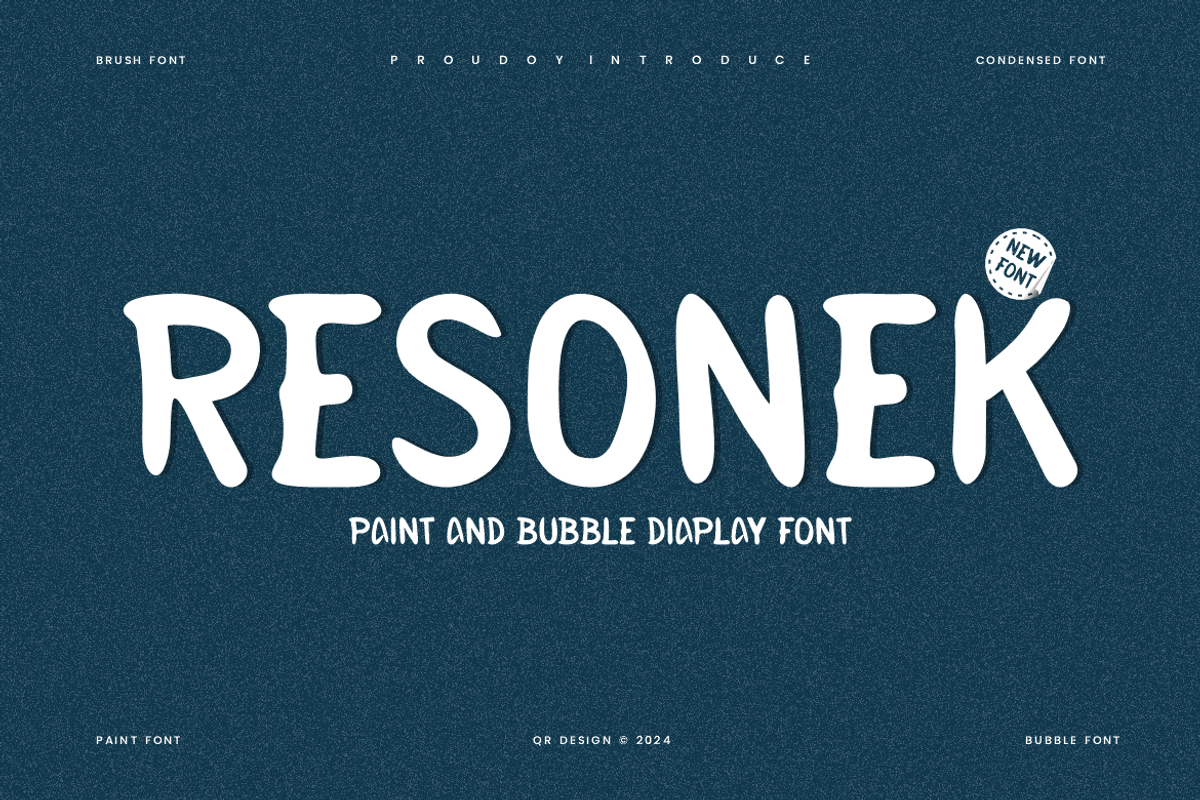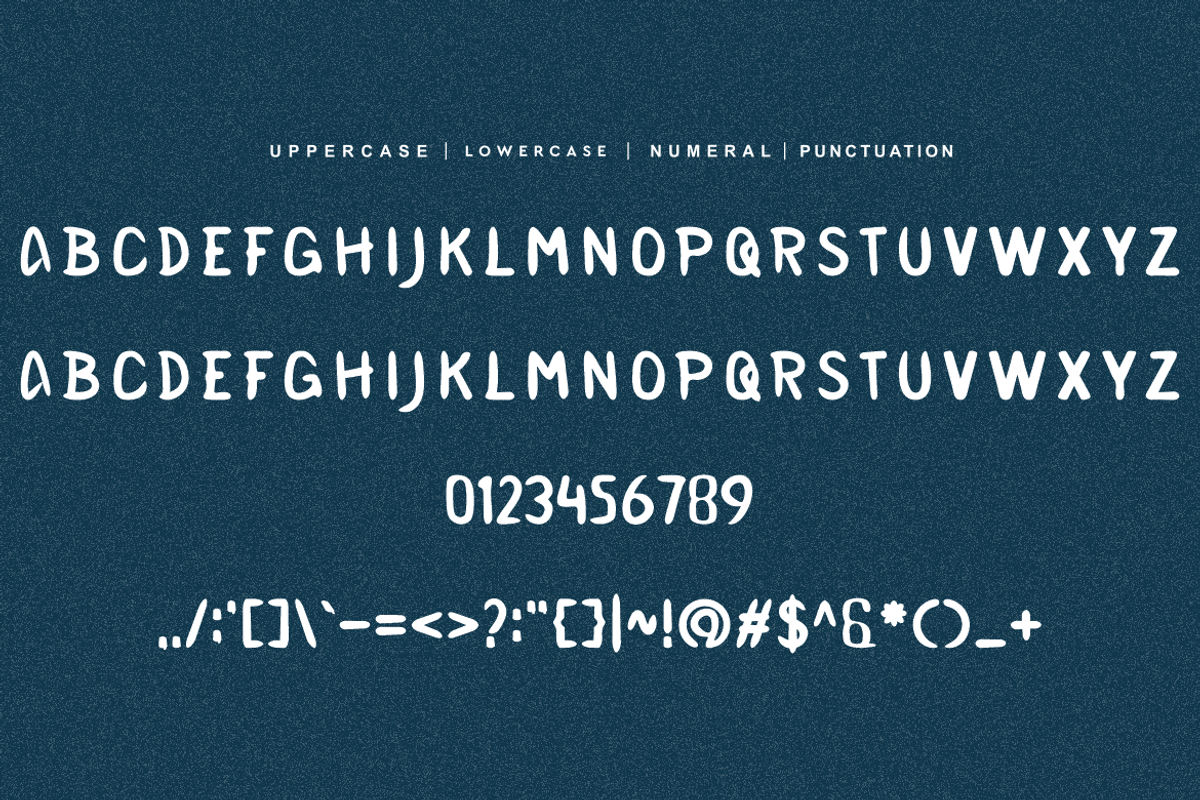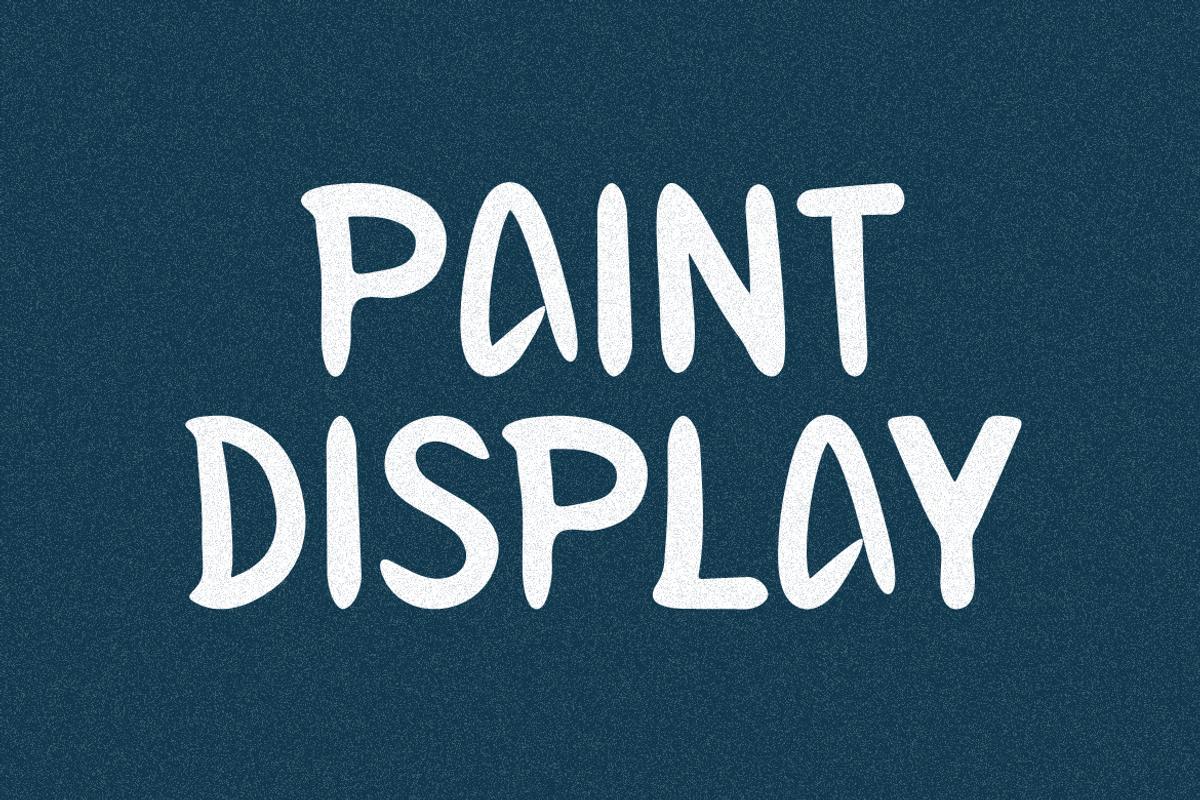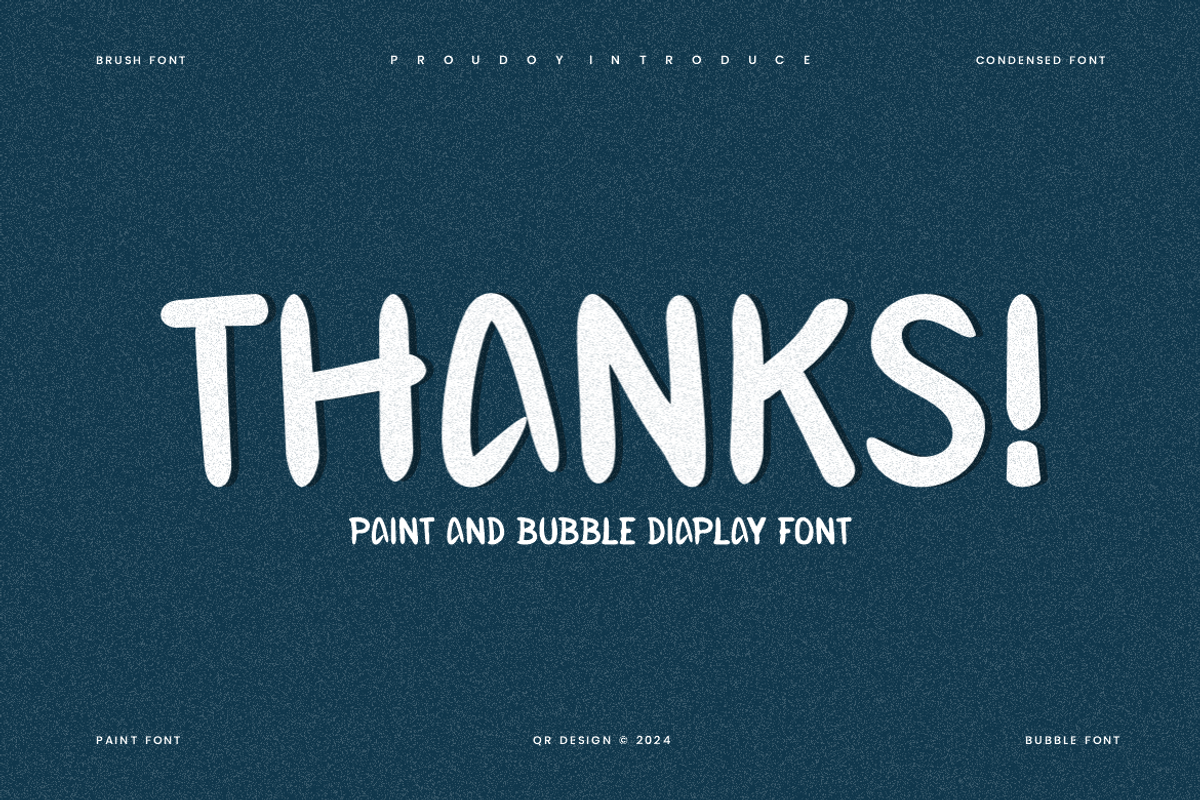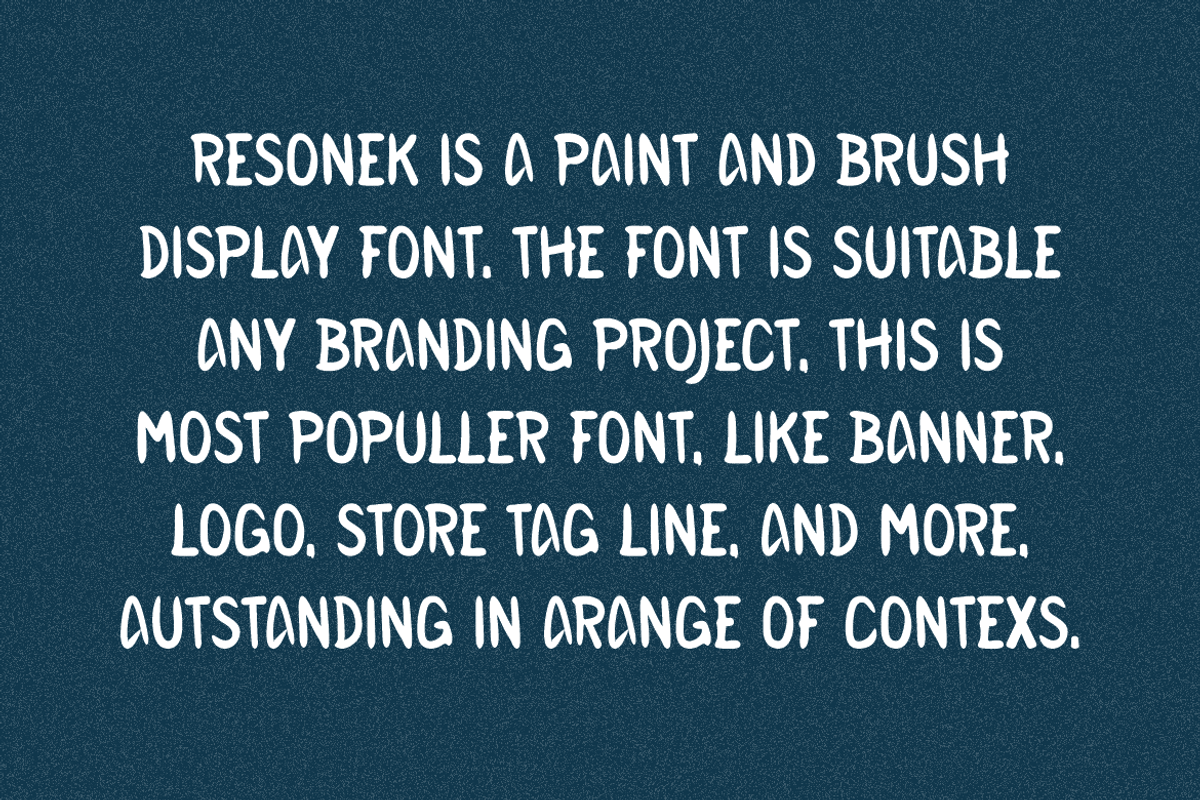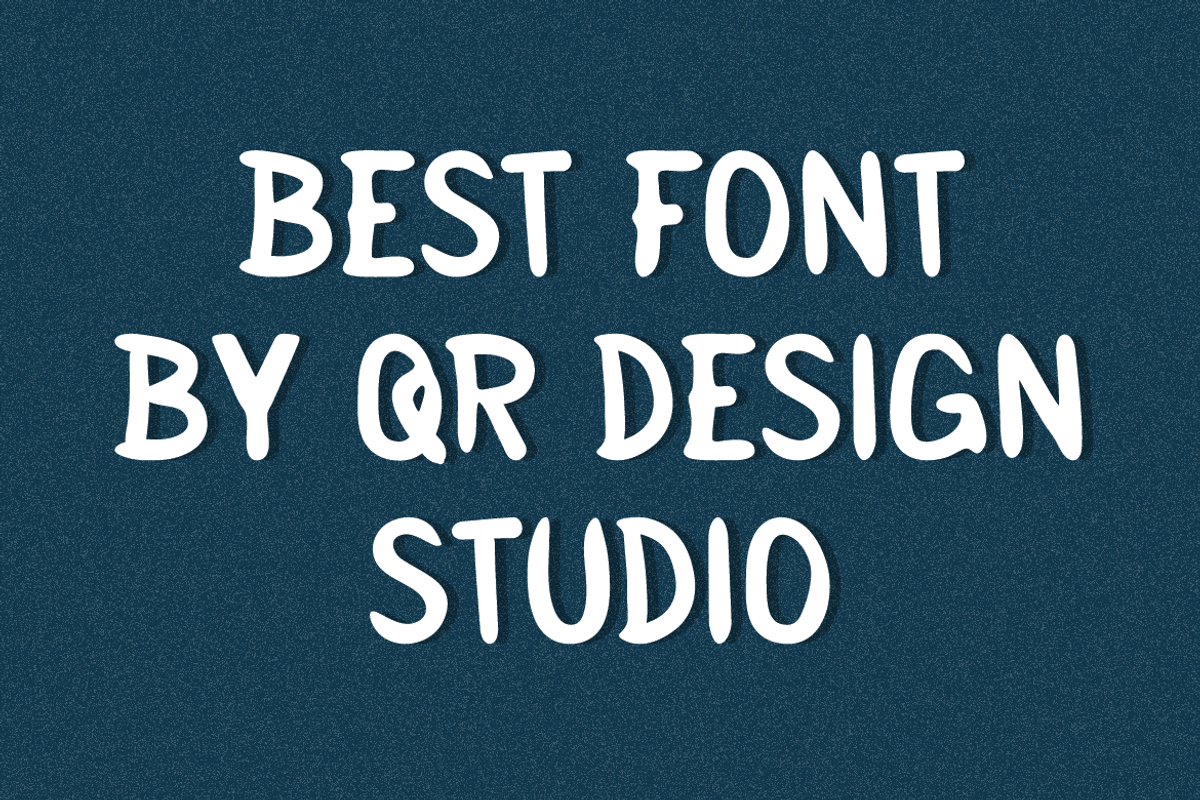
Resonek - Paint Display Font
Resonek - Paint Font is a bold and authentic display font. The font is suitable for any branding project like poster, logo, sport, and many more. Outstanding in a wide range of contexts.